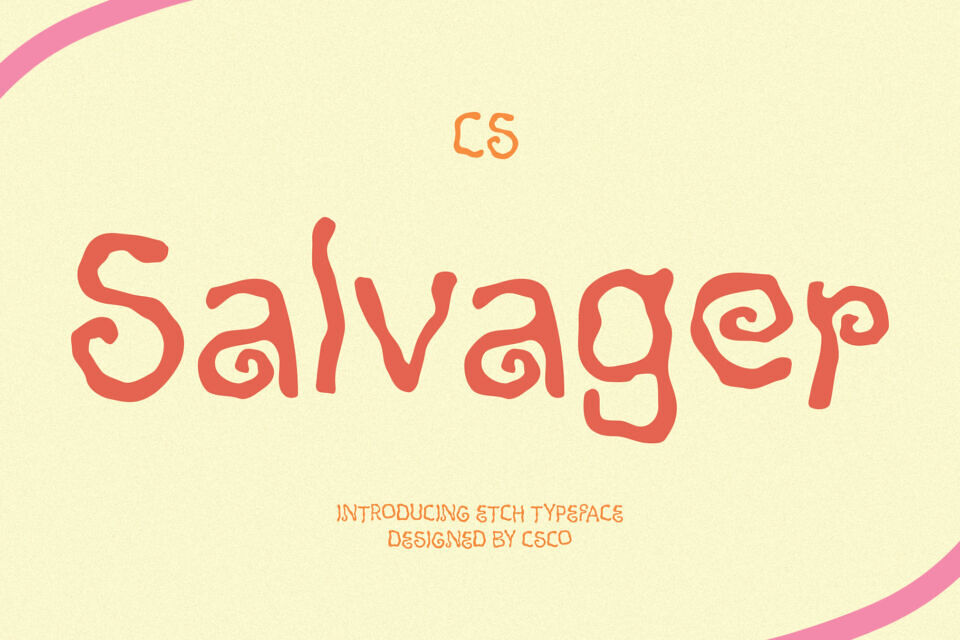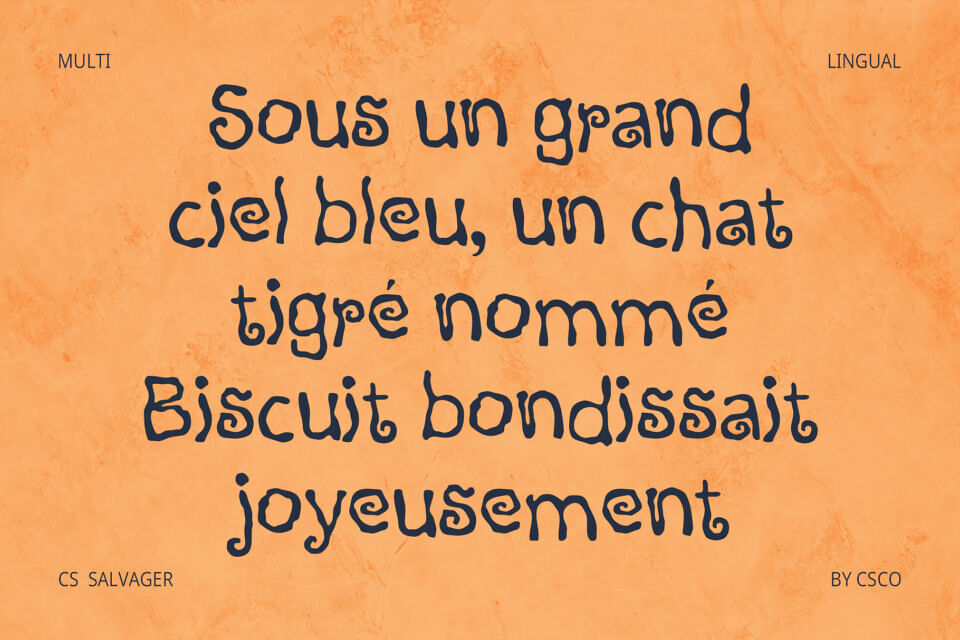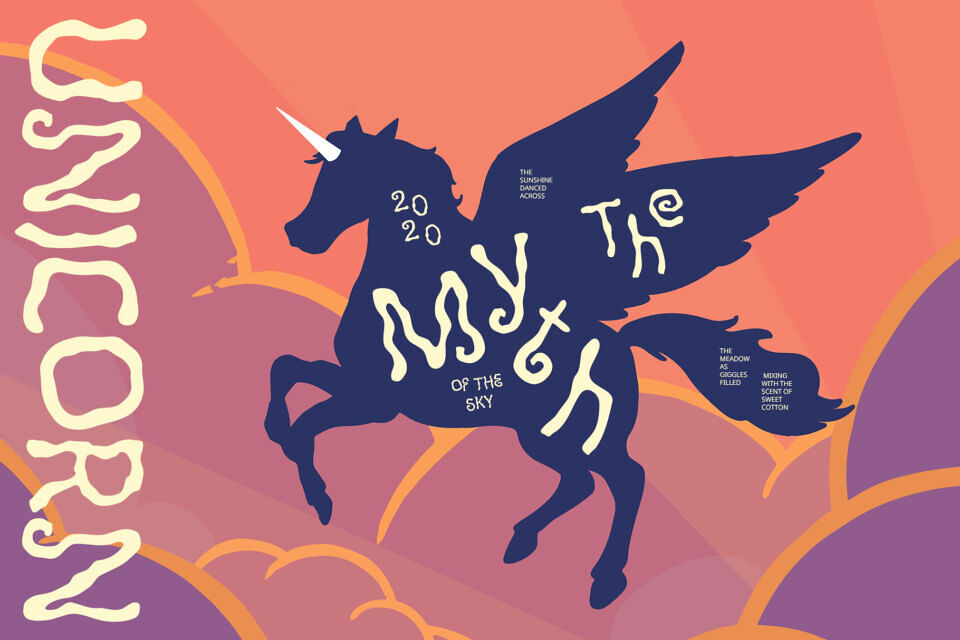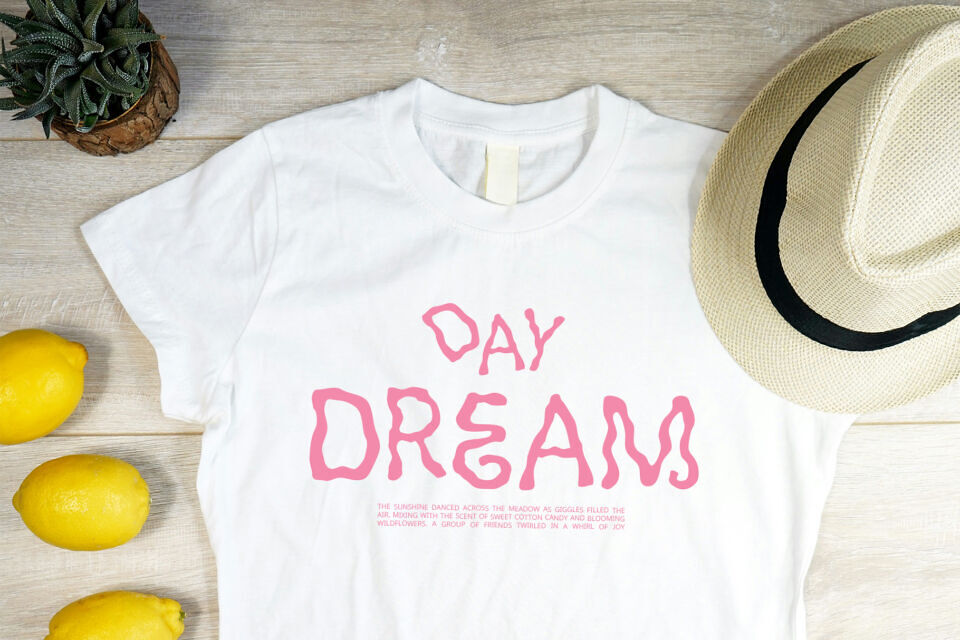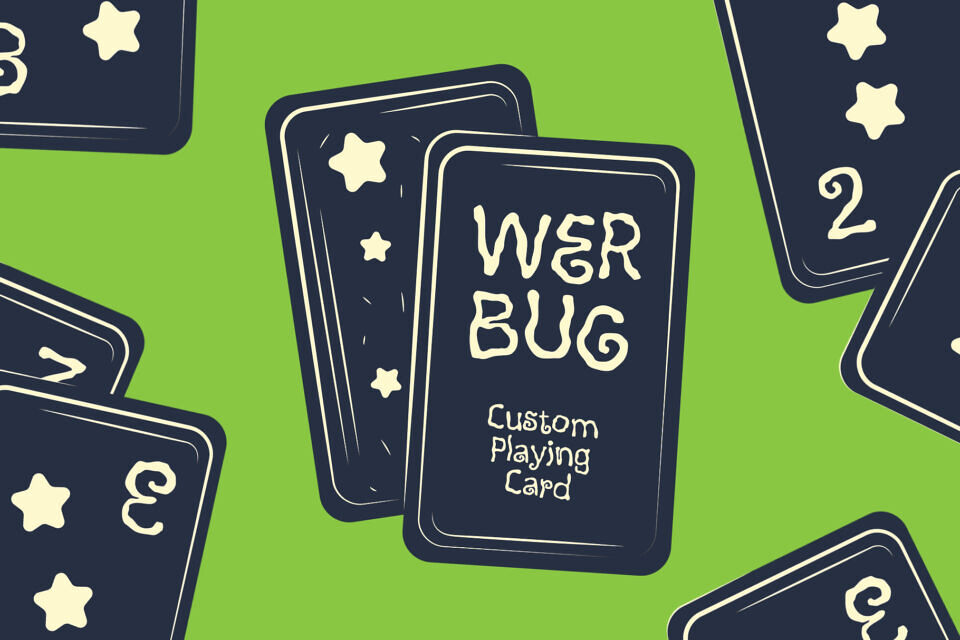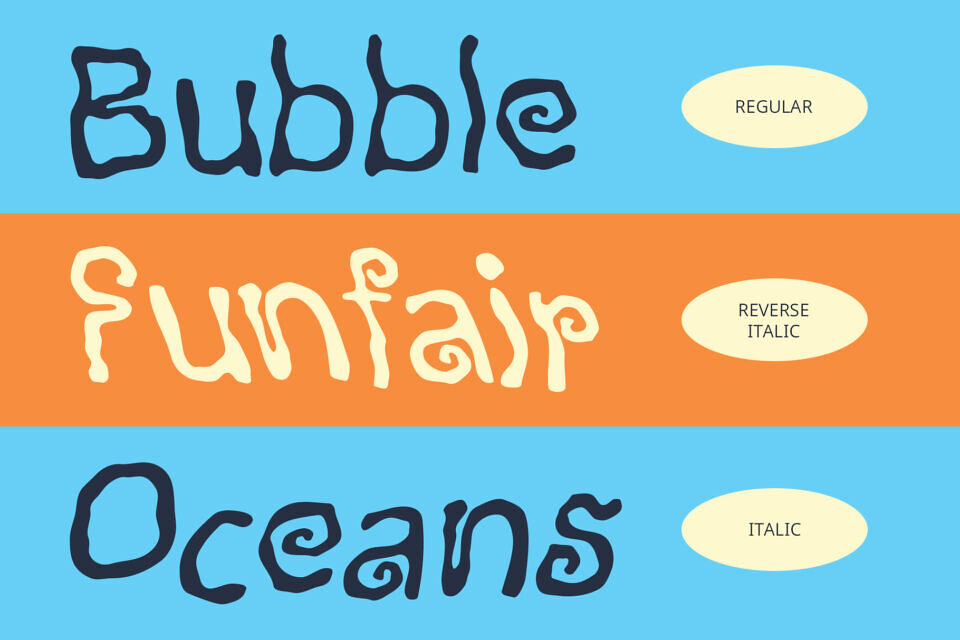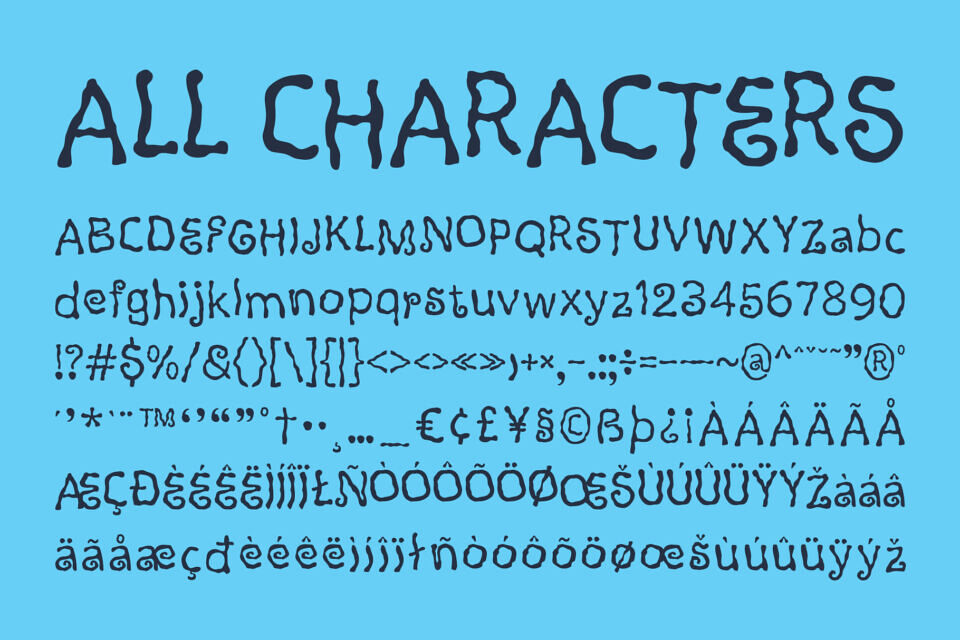
CS Salvager is a display font that captures the magic of hand-drawn illustration with its etchy and textured strokes. Each letter feels as though it was carefully sketched by hand, embracing an organic, imperfect style that radiates charm and creativity. This font brings the warmth and authenticity of storytelling into every design, offering a delightful escape from rigid digital typography.
With its irregular and playful lines, CS Salvager creates a sense of visual rhythm that adds personality to any project. The gentle quirks in each character feel alive—like they’re dancing across the page—offering a spontaneous, imaginative energy. This whimsical quality is perfect for inspiring wonder and curiosity, especially in younger audiences or audiences seeking something heartfelt and unique.
CS Salvager is more than a decorative font—it’s a tool for storytelling. It blends illustrative personality with typographic function, making every word feel like a scene from a beloved story. If you’re aiming to captivate, enchant, and inspire through your design, CS Salvager offers the perfect blend of playfulness, originality, and handcrafted elegance to bring your ideas to life.